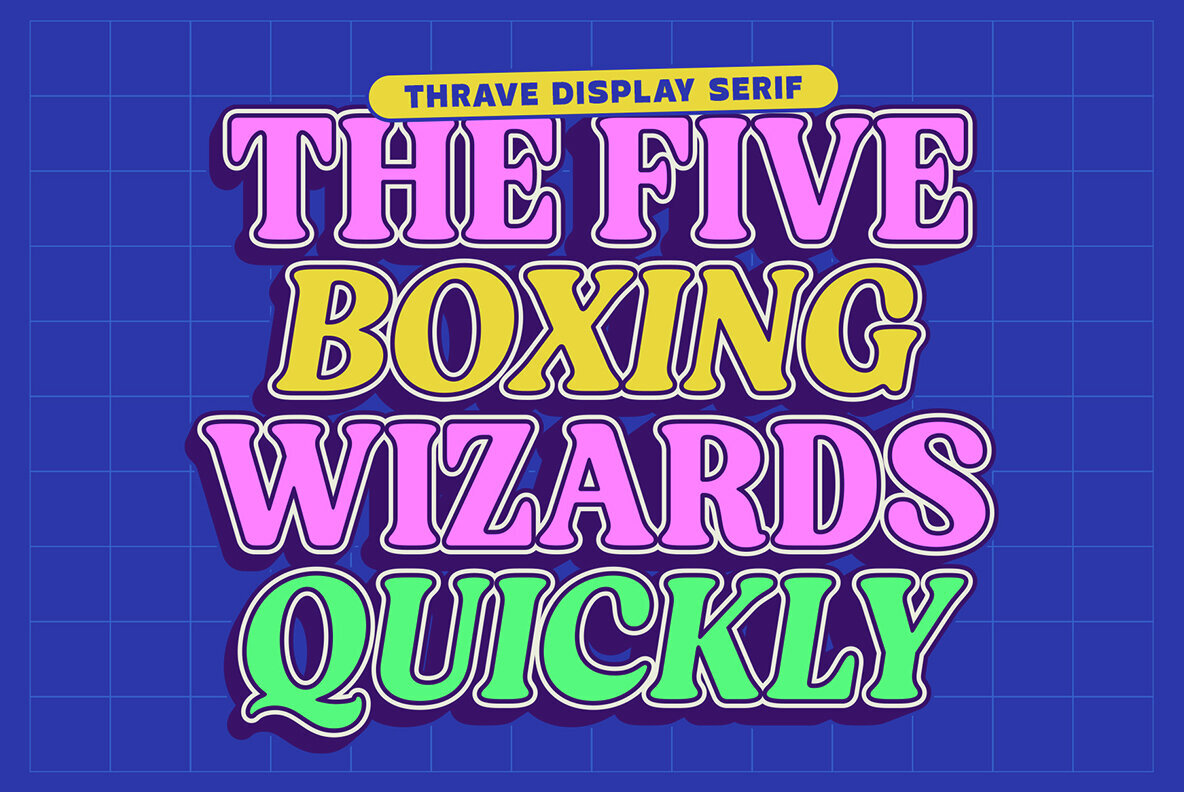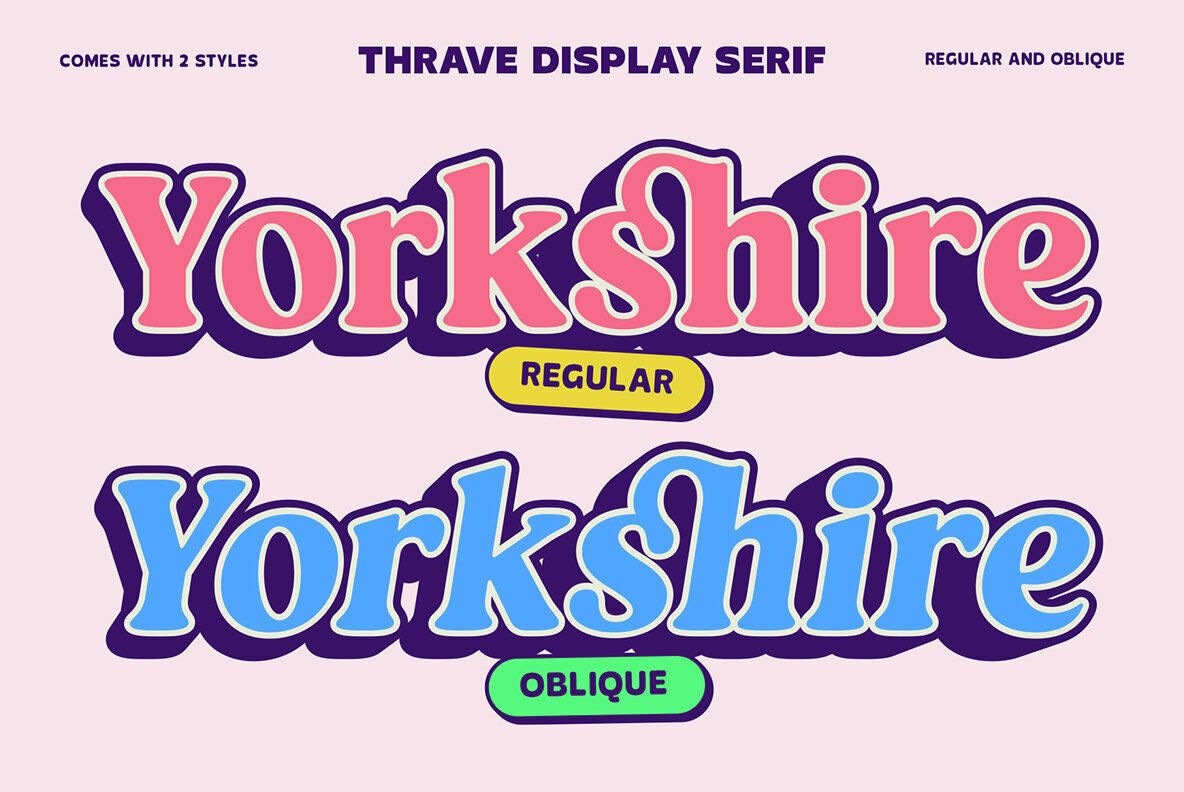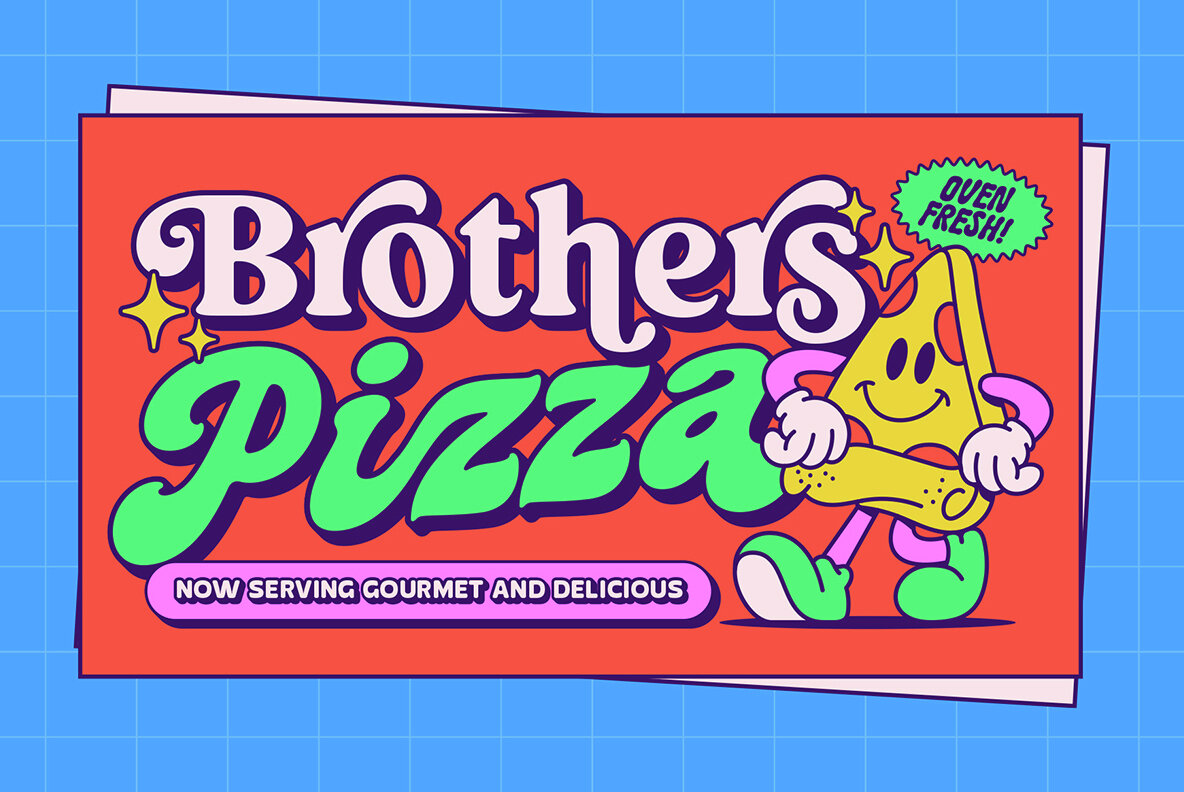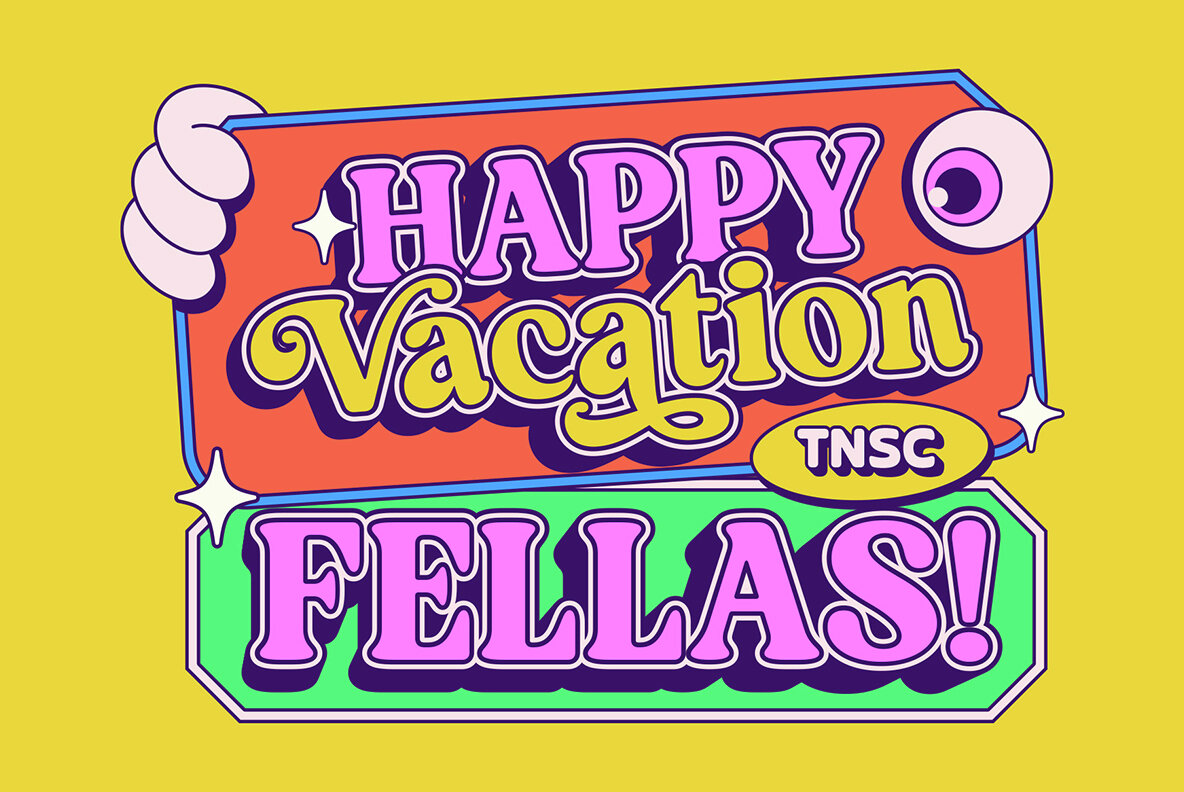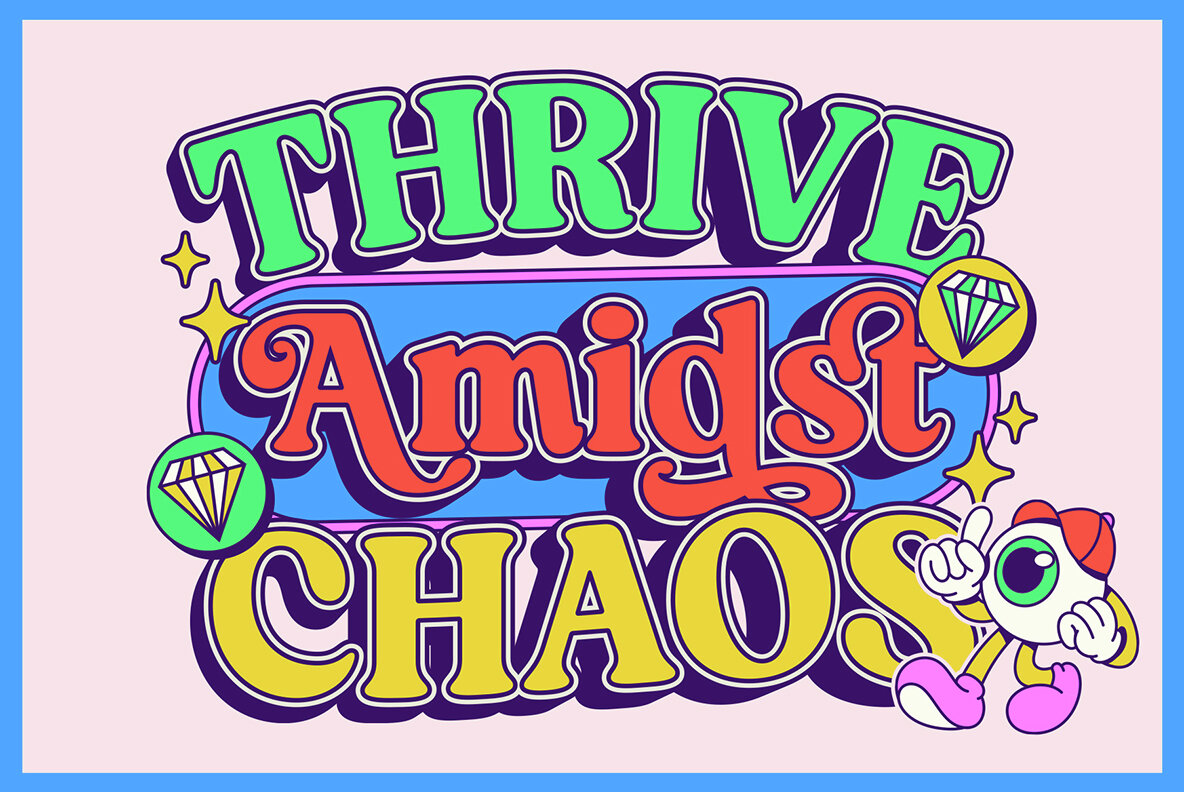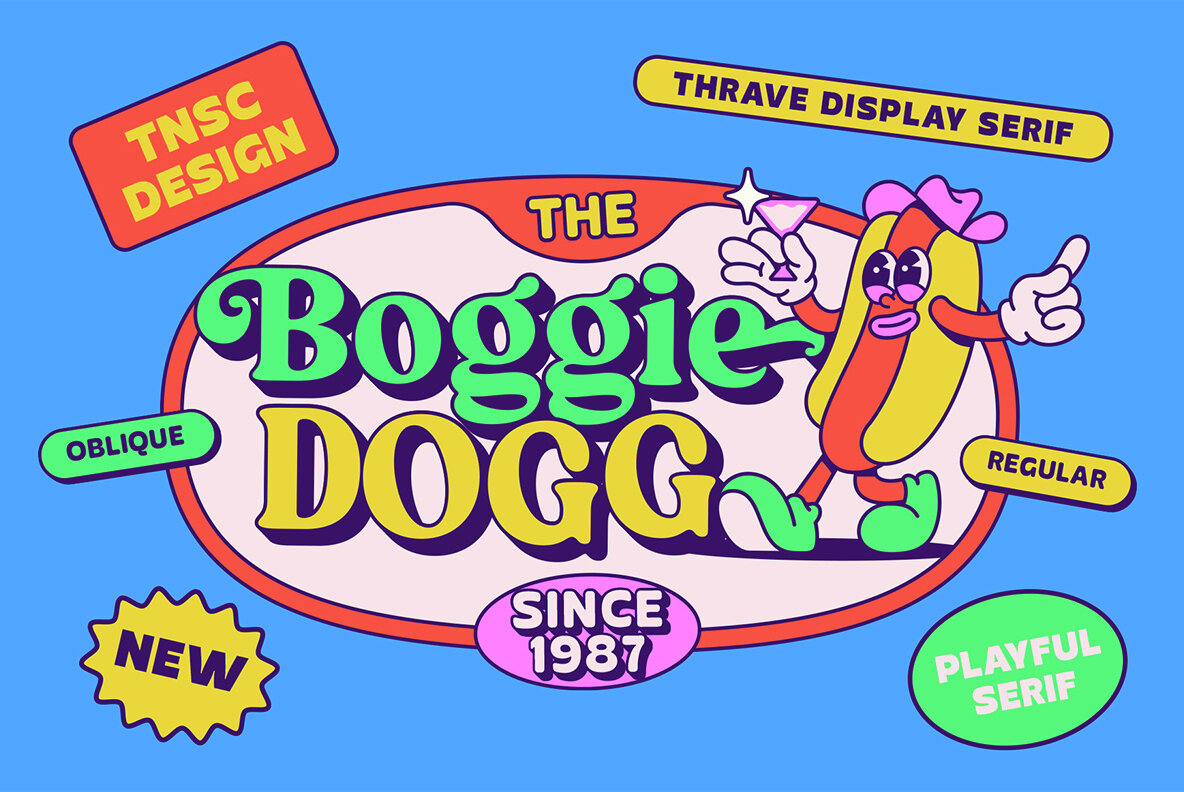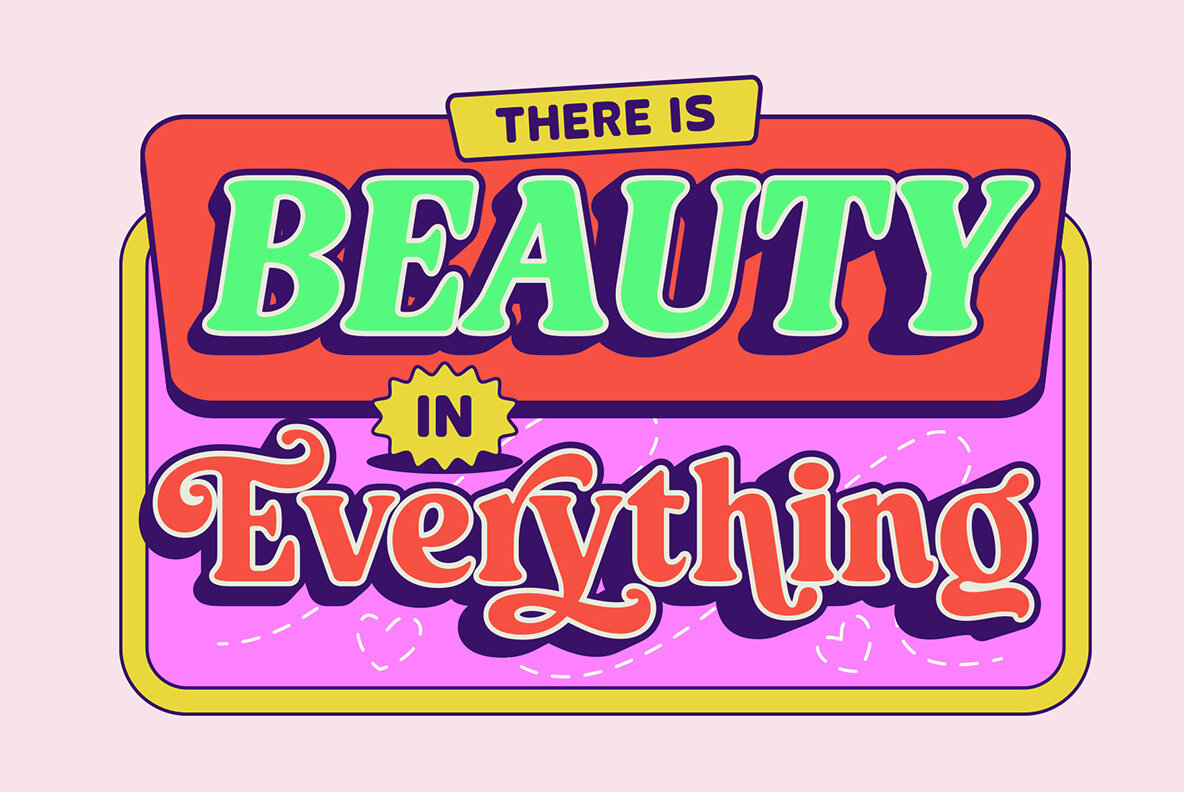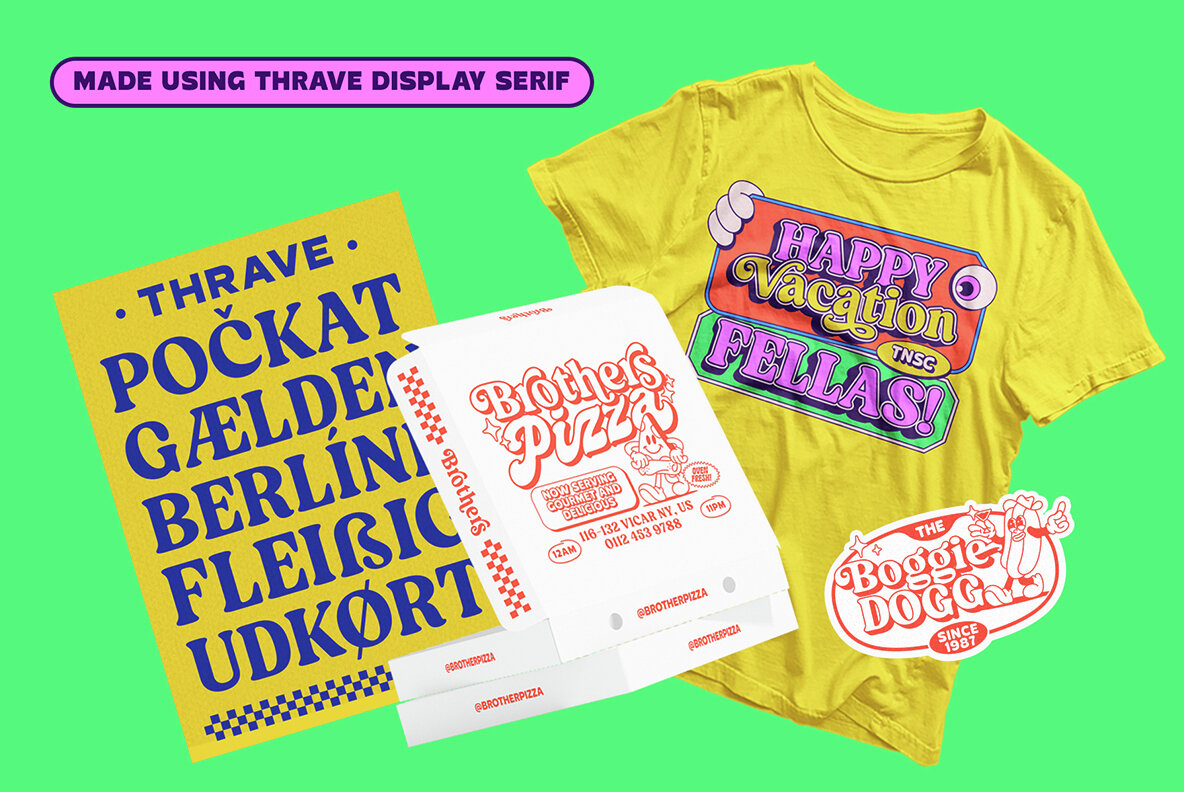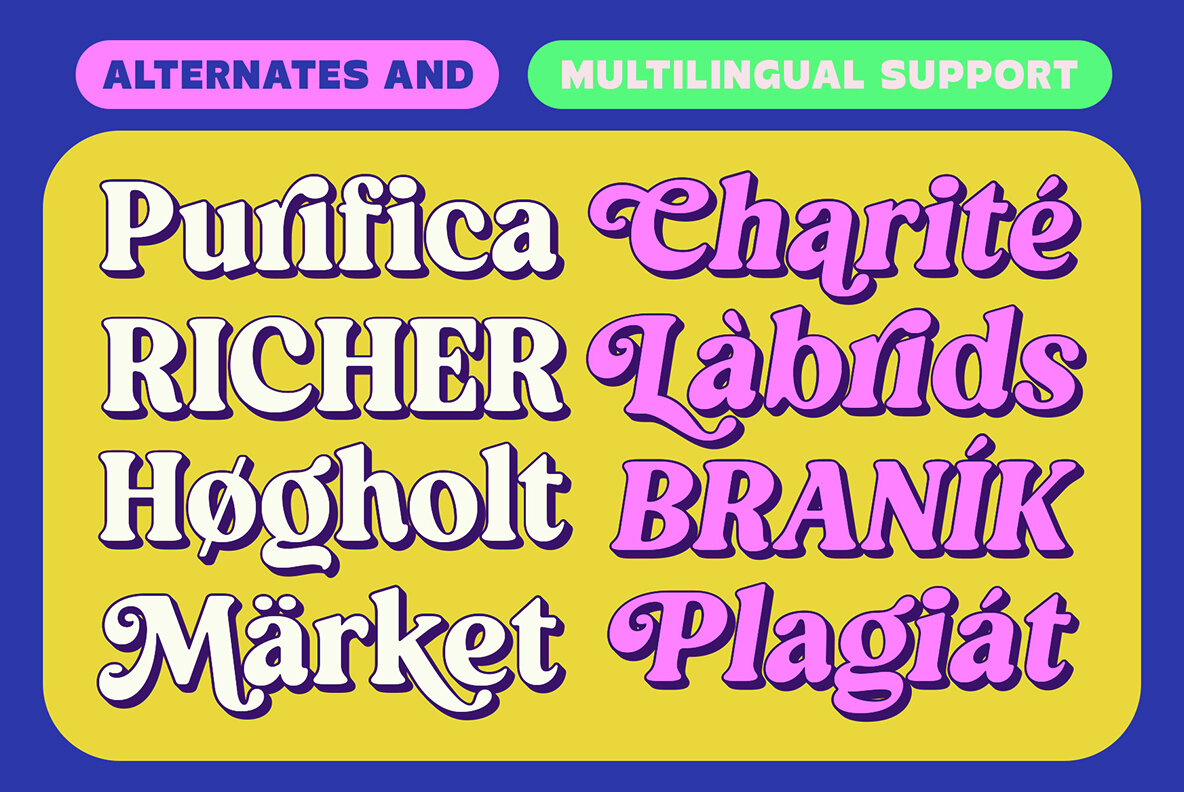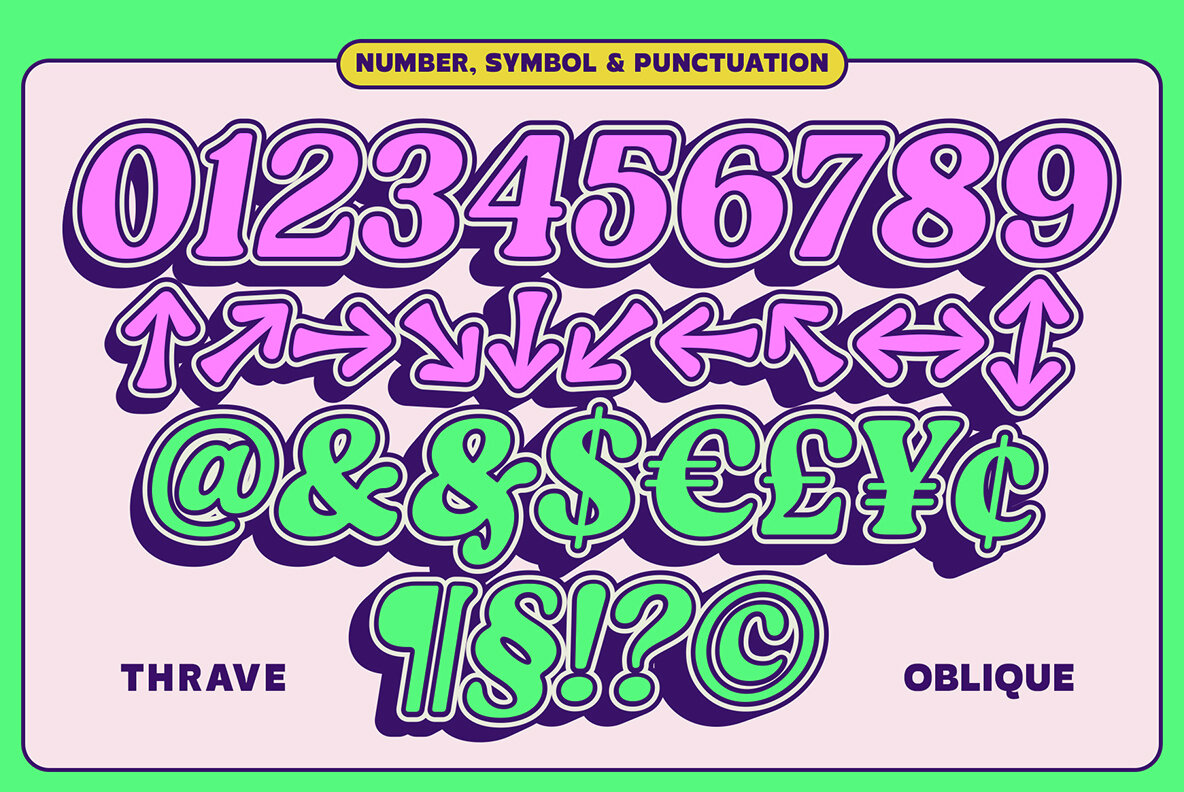
Thrave Font
Thrave Regular
Thrave Oblique
Thrave is a distinctive serif font available in two styles: Regular and Oblique, designed to add a pop of playfulness to your projects. Ideal for designers looking to infuse their work with a dynamic and fun aesthetic, Thrave offers alternative glyphs, providing versatility and creativity in your designs.
Perfect for a wide range of applications, Thrave fits seamlessly into logos, branding efforts, product packaging, inspirational quotes, and eye-catching posters. Its unique character and charming appeal make it a versatile choice for any creative endeavor, ensuring your work stands out with style and flair.